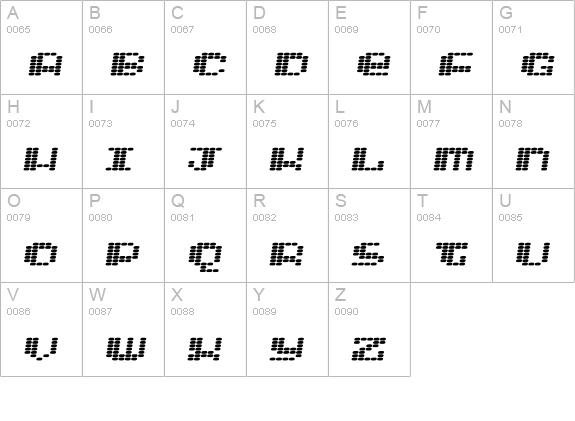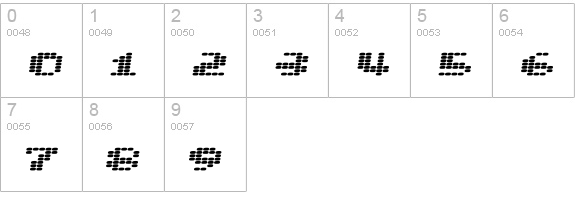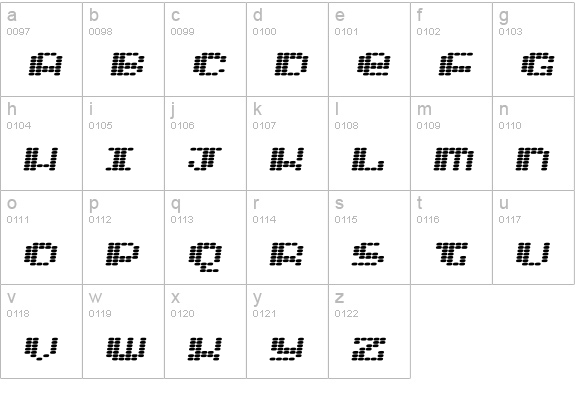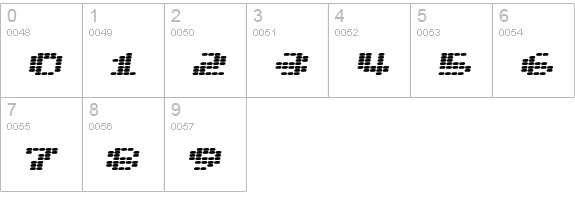
Intergalaktika 2 Font Details
Intergalaktika 2 font is an extraordinary typeface that effortlessly transports you to the outer reaches of the universe. Its sleek and futuristic design captures the essence of interstellar travel, making it perfect for projects that demand a sense of adventure and exploration. With its clean lines and bold letterforms, Intergalaktika 2 font exudes a sense of confidence and modernity. Its unique geometric shapes and carefully crafted curves give it a distinct and eye-catching appeal, making it a versatile choice for a wide range of creative endeavors. What sets Intergalaktika 2 font apart is not just its stunning design, but also the fact that it is free to download at FontsMarket.com. This means that you can bring this captivating font into your projects without any financial constraints. Whether you are designing a website, creating a logo, or crafting a poster, Intergalaktika 2 font will elevate your work to new heights. The beauty of Intergalaktika 2 font lies not only in its aesthetic appeal, but also in its versatility. It can be used for both headlines and body text, ensuring that your message is delivered with clarity and impact. Its clean and legible characters make it easy to read, even at smaller sizes, while its bold and dynamic presence adds a touch of excitement and energy to your designs. Download Intergalaktika 2 font today from FontsMarket.com and embark on a journey through the cosmos. Let your creativity soar as you explore the limitless possibilities that this font has to offer. Whether you are a designer, an artist, or someone who simply appreciates the beauty of typography, Intergalaktika 2 font is sure to captivate and inspire you. So go ahead, unleash your imagination and let this free font guide you to new frontiers of creativity.